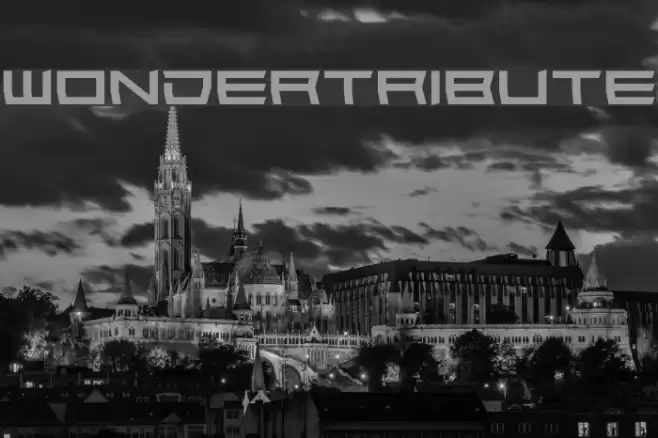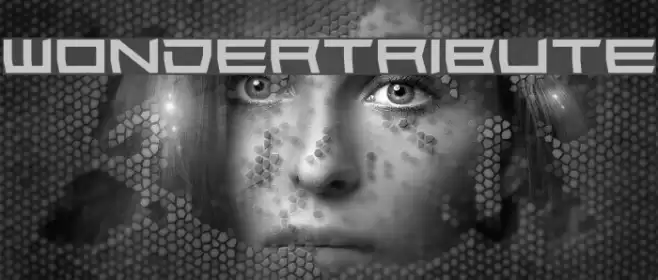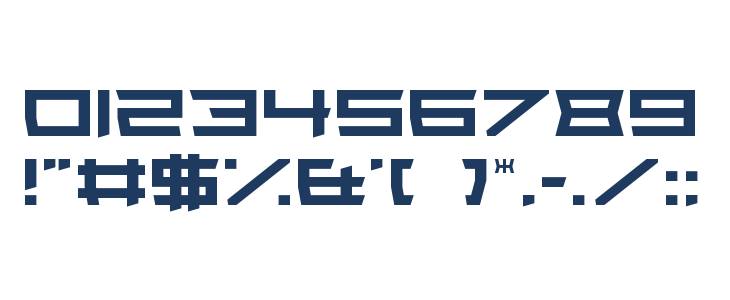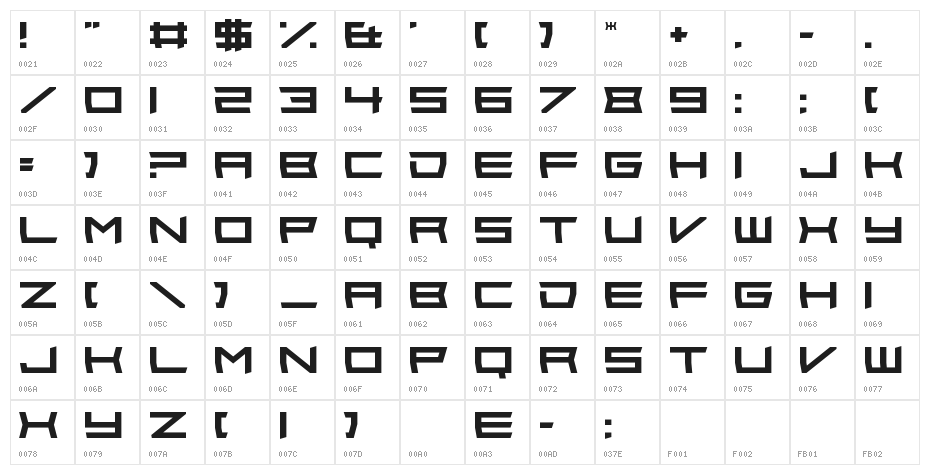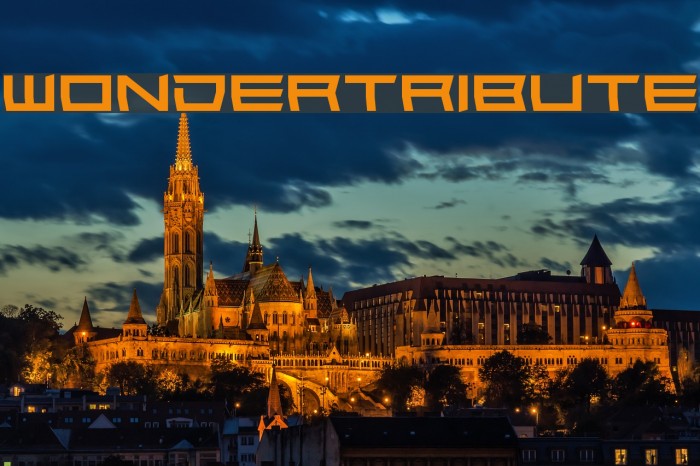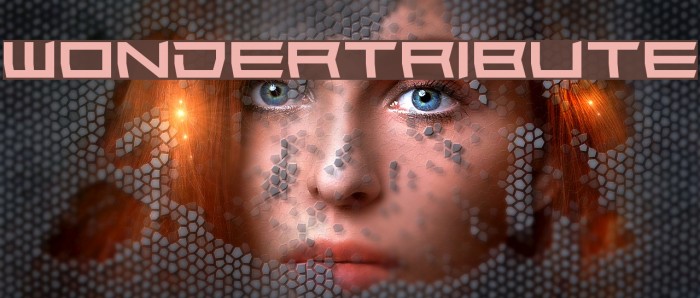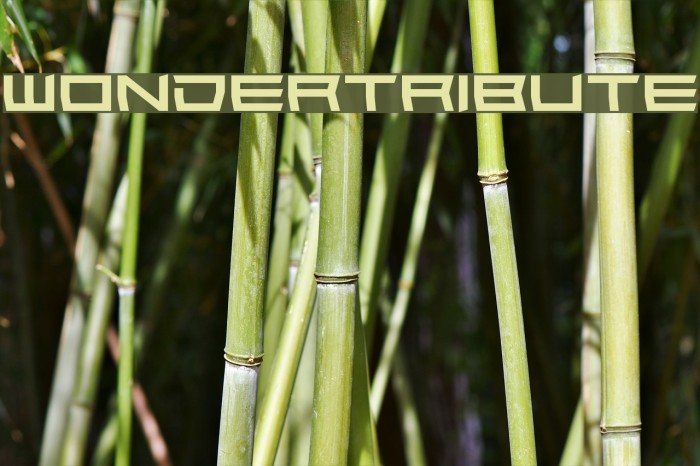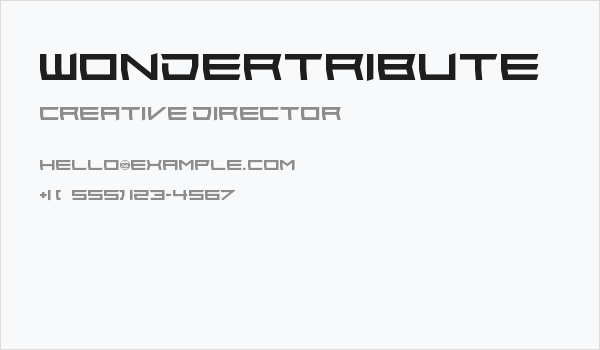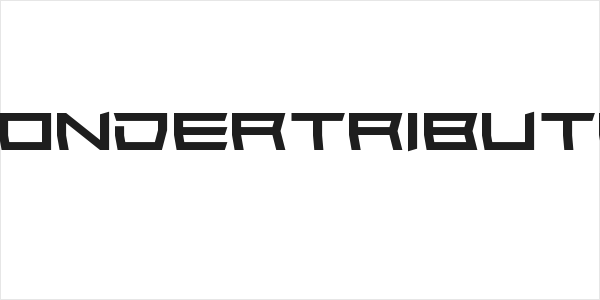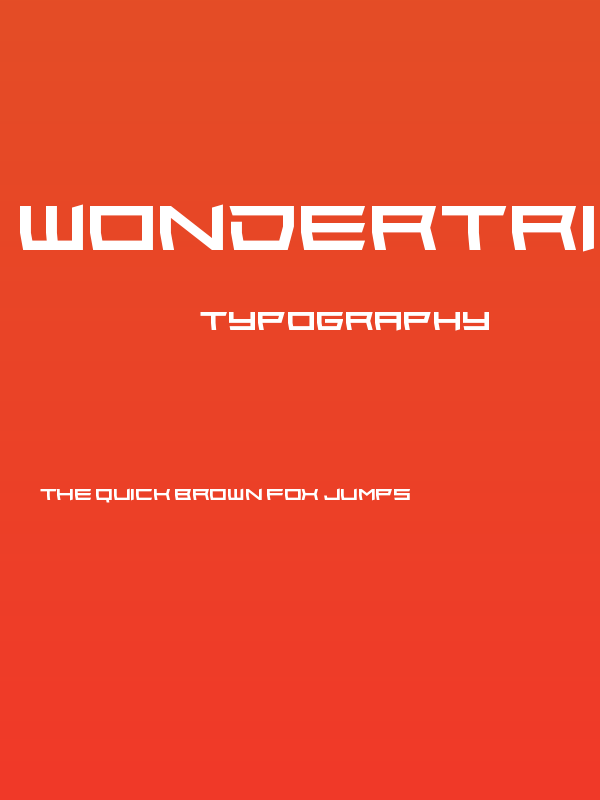
Wondertribute Font
Wondertribute Description
This font features a futuristic and geometric design, characterized by sharp angles and a bold presence. The uppercase and lowercase letters maintain a consistent style, with a unique angular approach that gives it a modern and tech-inspired look. The numerals and special characters follow the same design principles, ensuring uniformity across all elements. This font's distinct style makes it suitable for projects that require a contemporary and edgy feel.
A futuristic, angular font with a bold, tech-inspired design from Uncategorized fonts.
- Proposed Projects: Ideal for technology branding, sci-fi posters, video game titles, and modern digital interfaces.